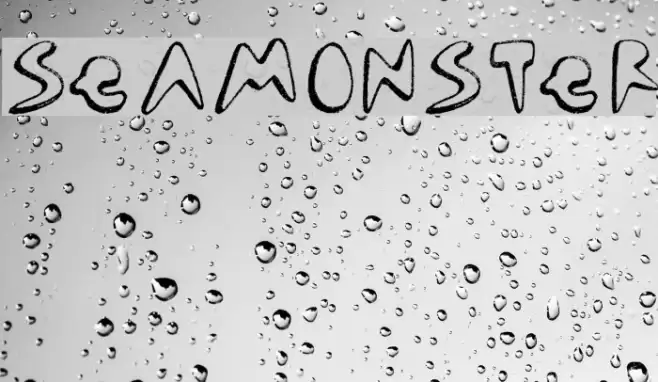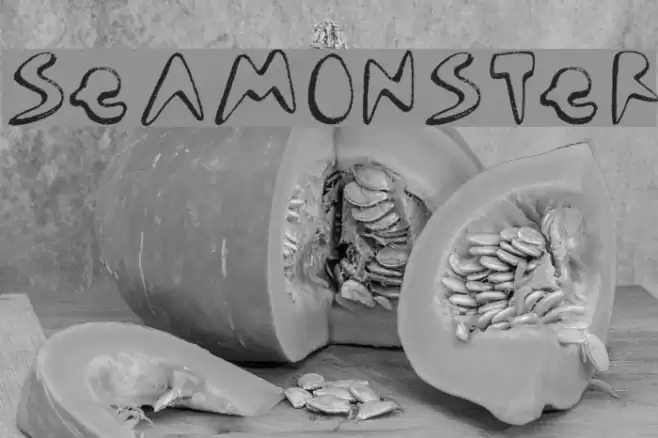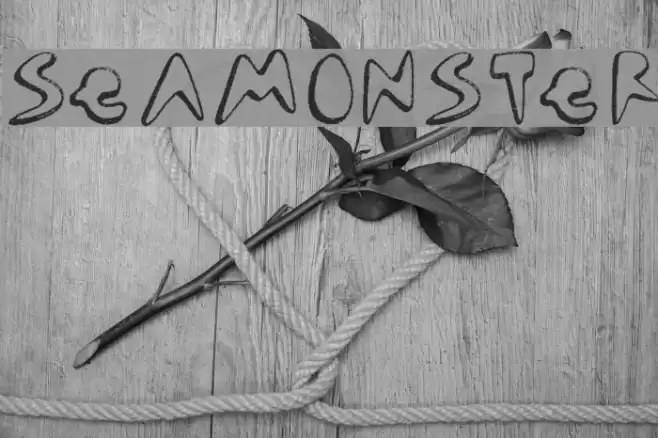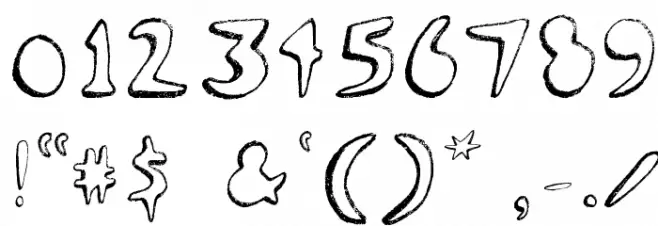
seamonster Font
seamonster Description
This font features a playful and whimsical style, characterized by its irregular and wavy strokes that mimic the fluidity of water. The letters have a hand-drawn appearance, with varying thicknesses that create a dynamic and lively look. The uppercase and lowercase letters maintain a consistent style, with unique shapes that add to the font's charm. The numbers and special characters follow the same playful design, making this font suitable for creative and informal projects. Its distinctive style is reminiscent of oceanic themes, making it perfect for designs that require a touch of fun and creativity.
A playful, hand-drawn font with wavy, oceanic-inspired strokes from Cartoon fonts.
- Proposed Projects: Ideal for children's books, creative posters, ocean-themed designs, and playful branding.
- Overall Style: Whimsical